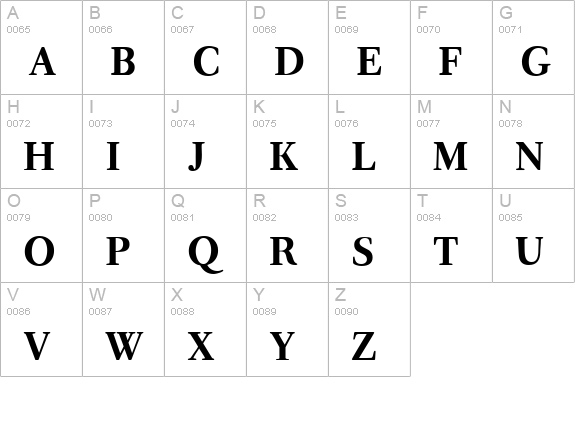
Q650-Roman-Regular is the standard, neutral variant in the Q650 typeface family \xE2\x80\x94 well suited to general body text, paragraphs, and standard typographic work.
Q650-Roman-Regular font is a classic typeface that exudes elegance and sophistication. With its clean lines and traditional design, this font is perfect for a wide range of print and digital projects. Whether you are creating invitations, posters, or branding materials, Q650-Roman-Regular font will add a touch of timeless style to your designs. The best part is that Q650-Roman-Regular font is available for free download at FontsMarket.com. This means you can access this high-quality font without any cost, making it a valuable addition to your font library. Don't miss out on the opportunity to enhance your projects with the beauty and versatility of Q650-Roman-Regular font. Download it today and start creating stunning designs with ease.